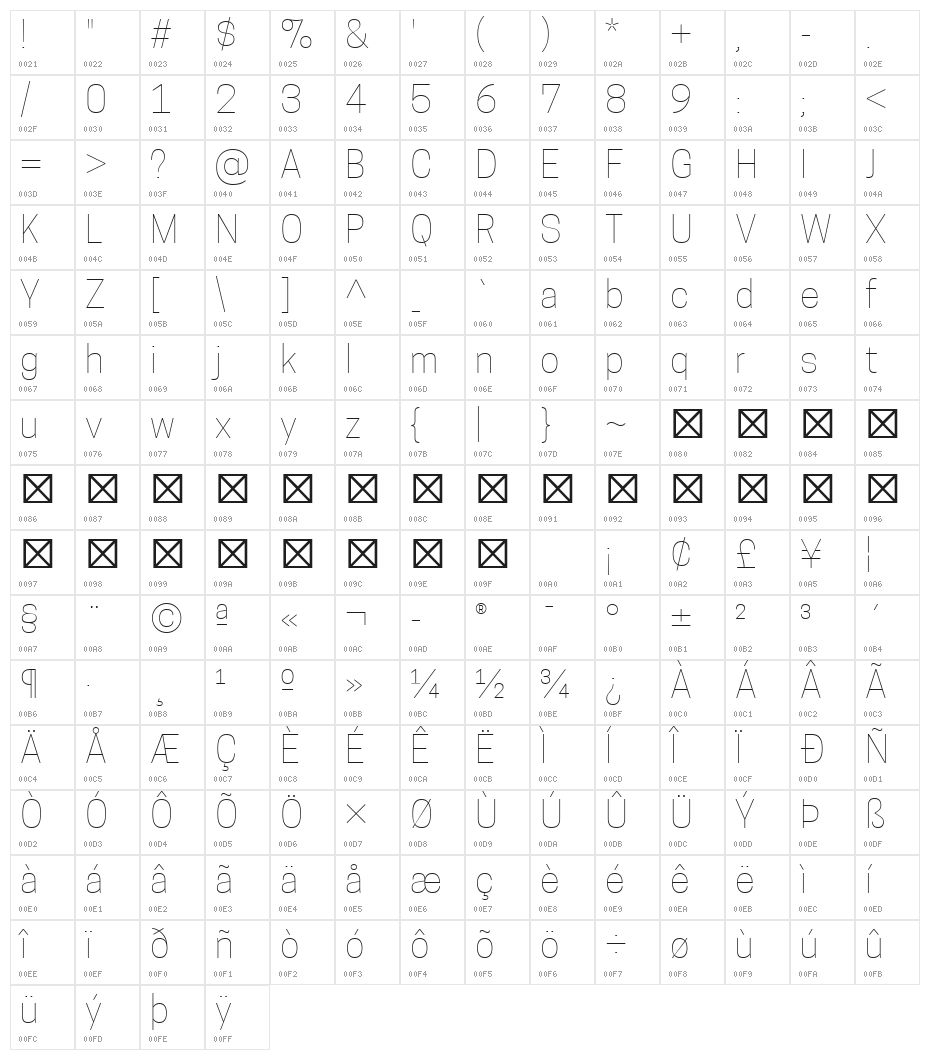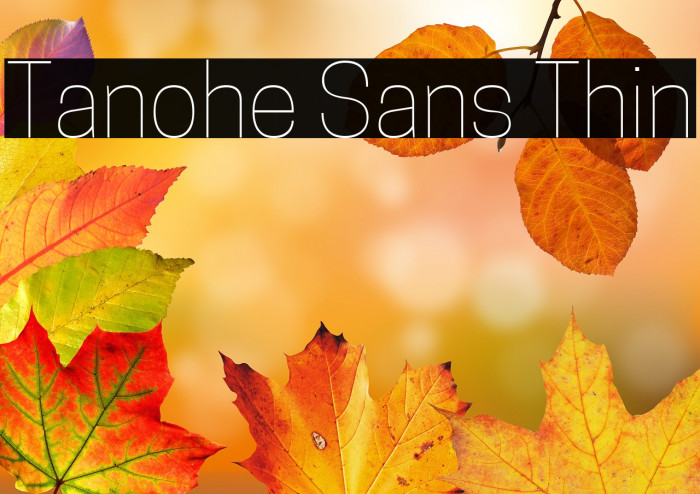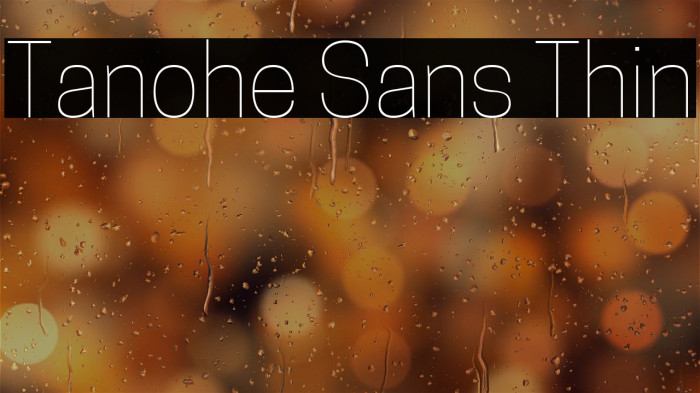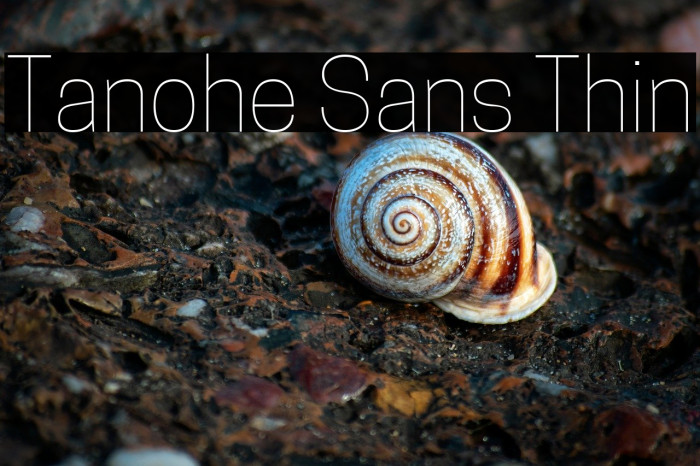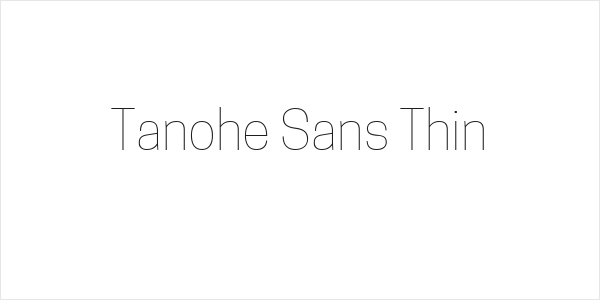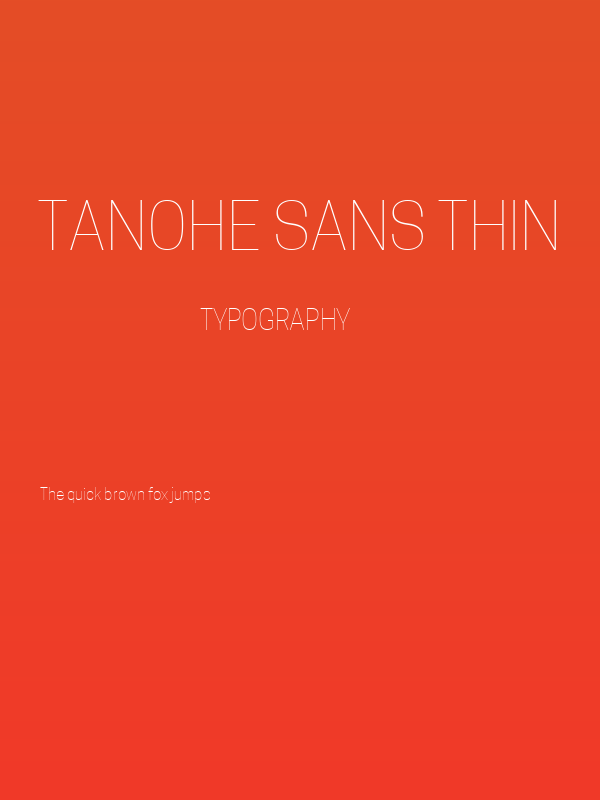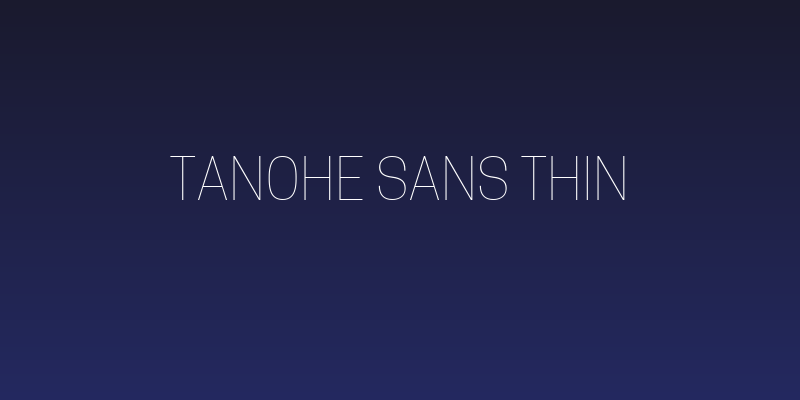
Tanohe Sans Thin Font
Tanohe Sans Thin Description
This font features a sleek and minimalistic design with thin, uniform strokes that convey a sense of modernity and elegance. The characters are well-proportioned, with a clean and straightforward appearance that enhances readability. The uppercase and lowercase letters maintain a consistent style, while the numerals and special characters integrate seamlessly into the overall design. This font's simplicity and clarity make it versatile for various applications, from digital interfaces to print media.
Proposed ProjectsIdeal for use in digital interfaces, minimalist branding, editorial design, and modern print media.